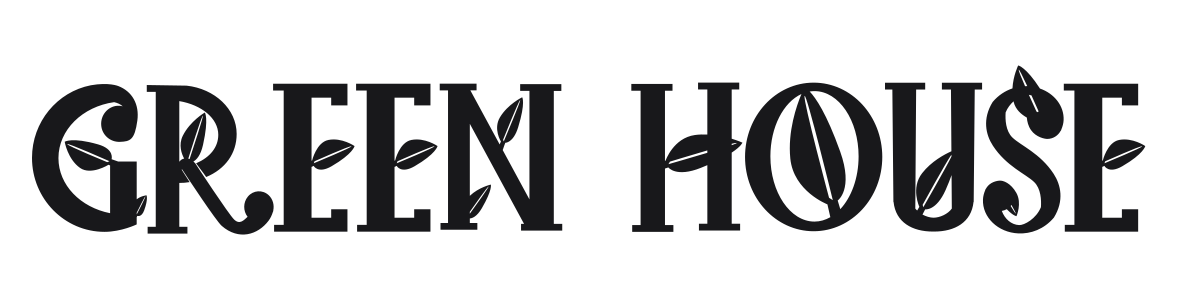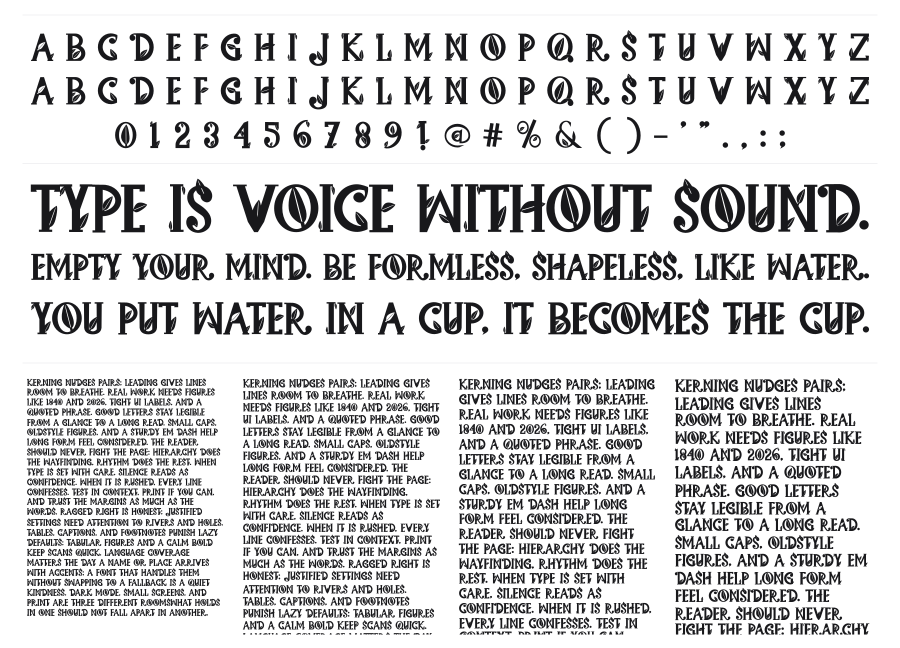
Green House
Green House is a bold decorative serif with leaf illustrations embedded directly into the characters, turning each letter into a small piece of botanical art. The high-contrast strokes and sharp serifs give it a strong editorial presence, while the floating leaves soften it with an organic, handcrafted warmth. A natural choice for brands built around nature, wellness, or sustainability.